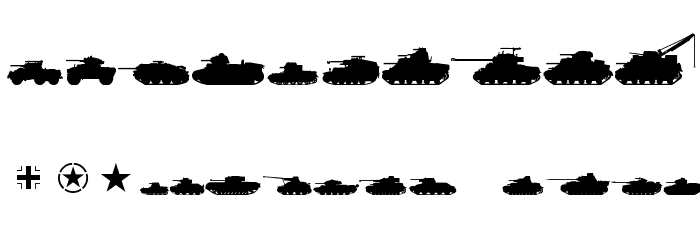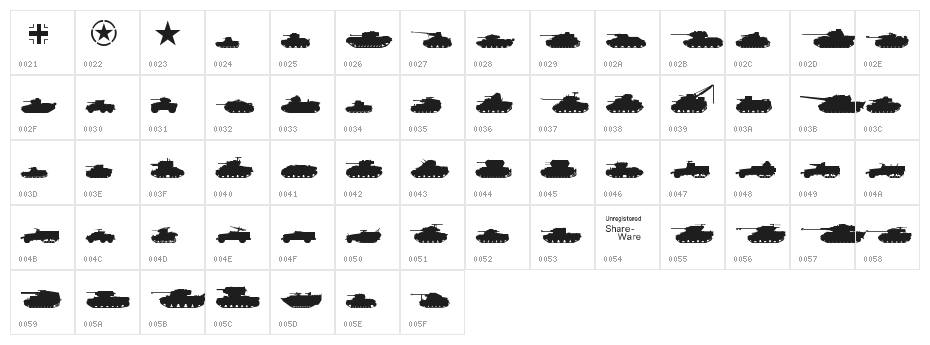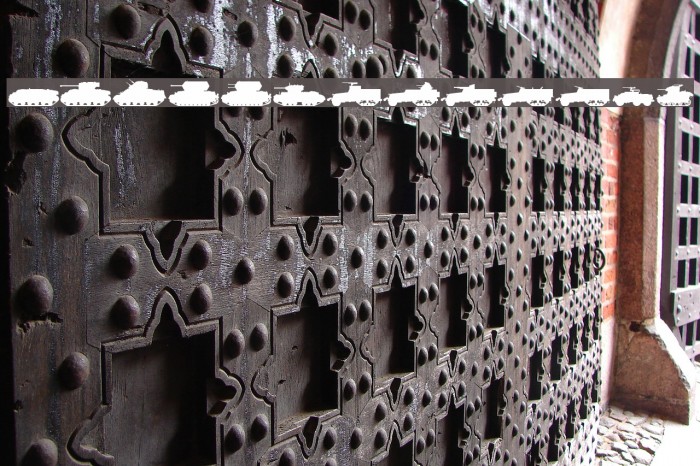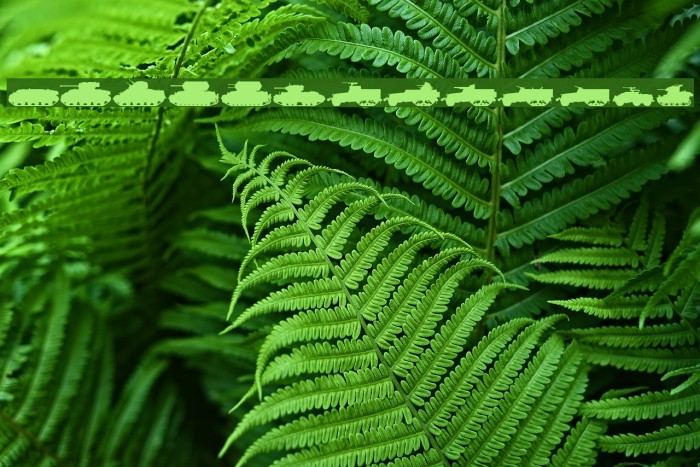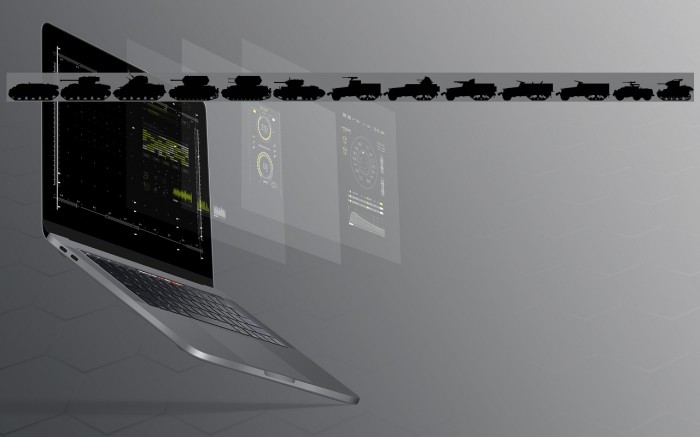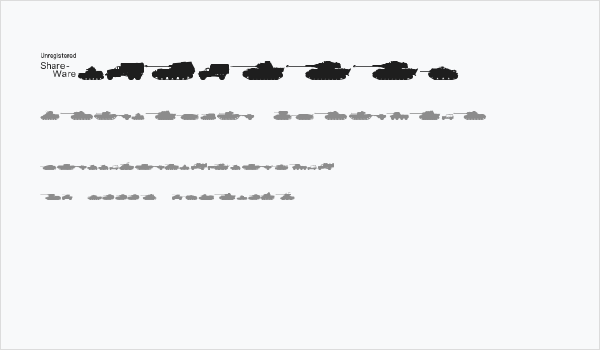
Tanks-WW2 Font
Tanks-WW2 Description
A decorative dingbat font featuring detailed black silhouettes of World War II tanks, armored vehicles, and military symbols. Each character is represented by a unique vehicle or emblem, rendered in solid black with clear outlines and no interior detail.
| Overall Style | Decorative, Thematic, Silhouette |
| Use Case | Icons, Decorative elements, Themed graphics |
| Proposed Projects | Military-themed posters, educational materials, historical presentations, game design, themed party invitations. |